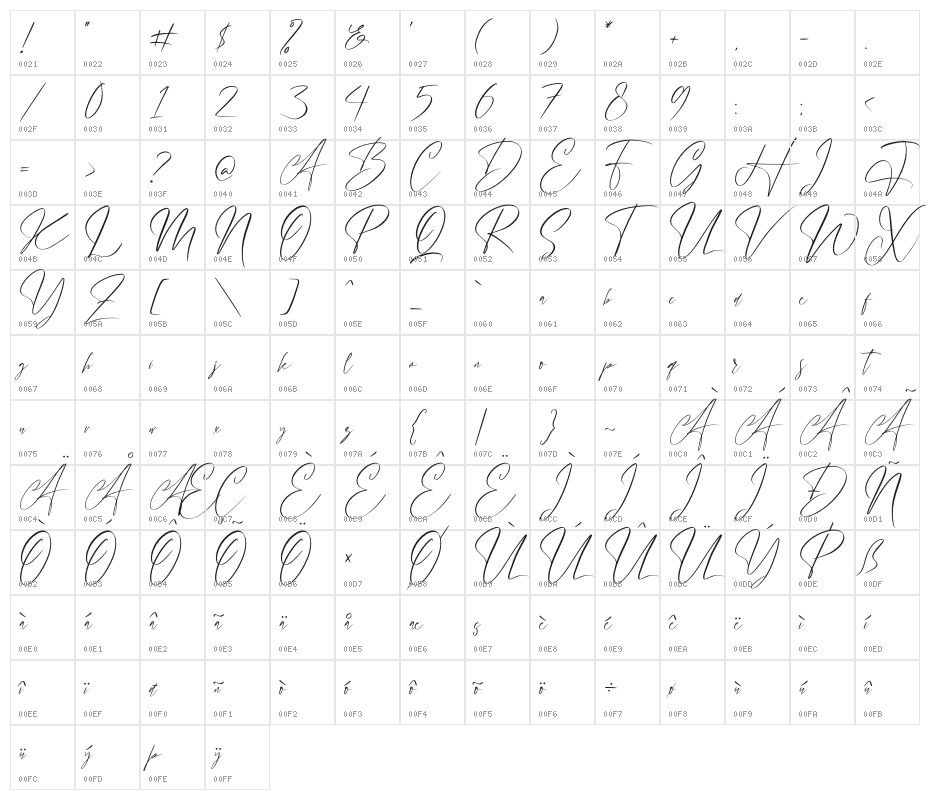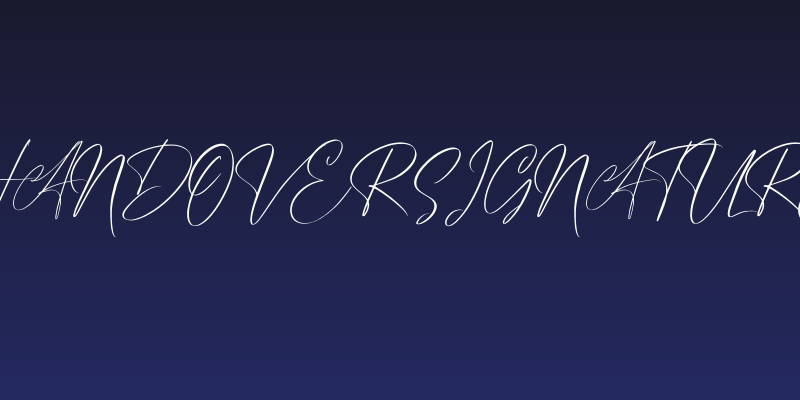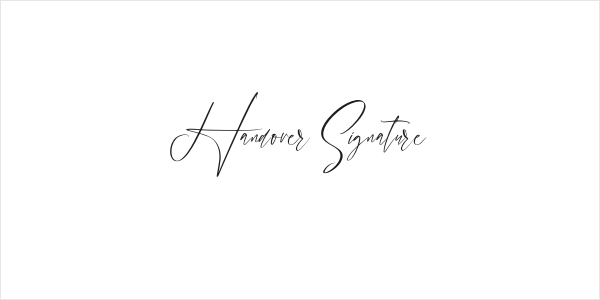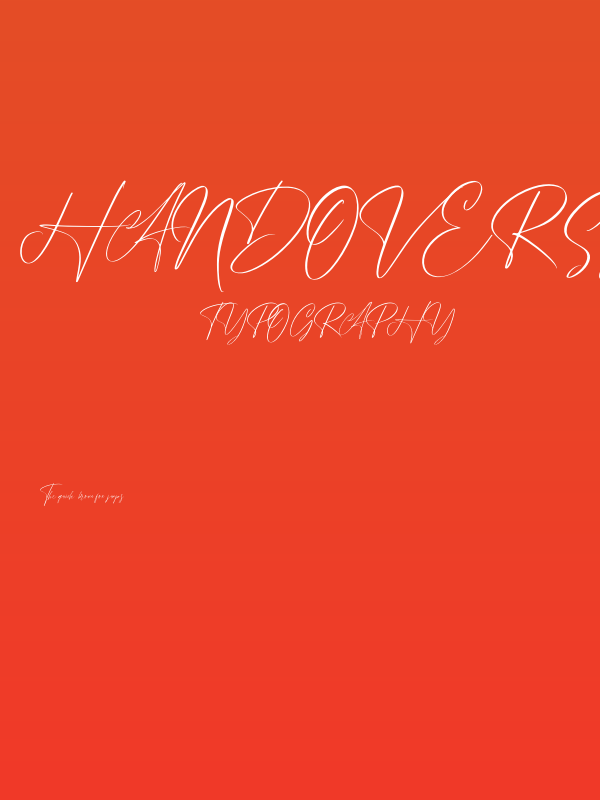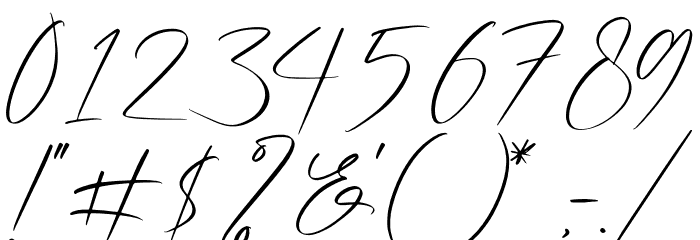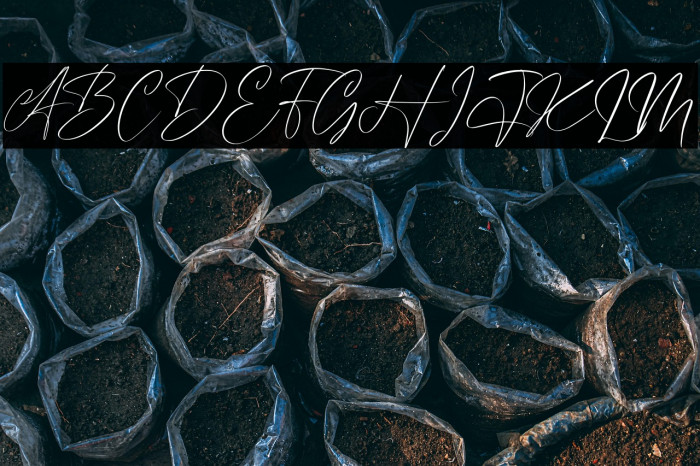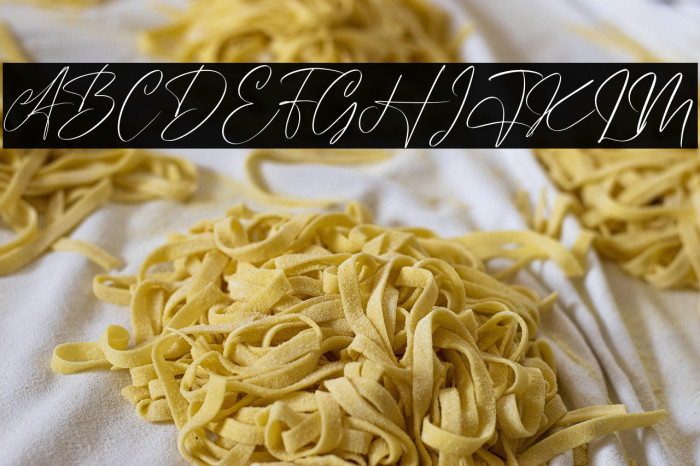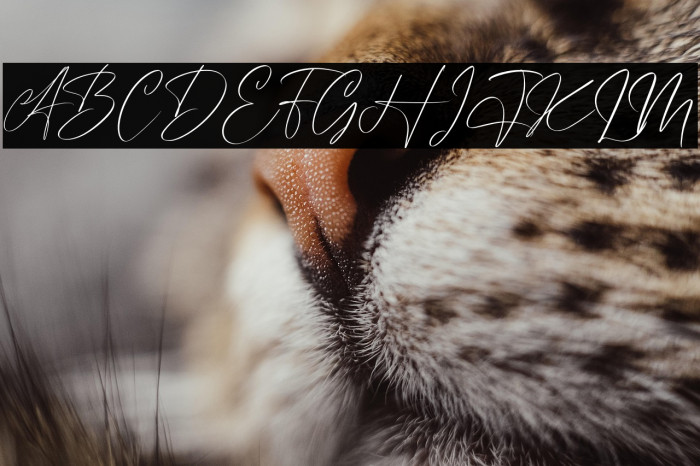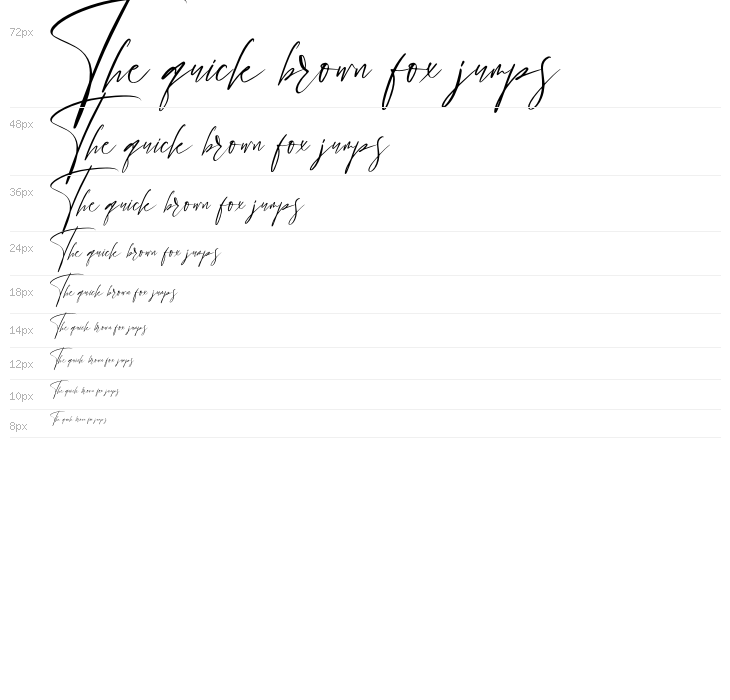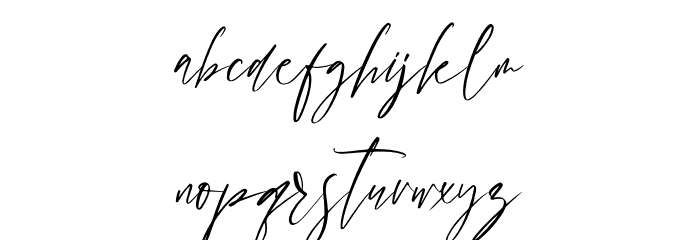
Handover Signature Font
Handover Signature Description
This font exudes a sophisticated and elegant handwritten style, characterized by its fluid and cursive strokes. The uppercase letters are tall and graceful, with sweeping lines that give a sense of movement and flair. The lowercase letters maintain a consistent flow, complementing the uppercase with their own unique charm. Numbers are designed with a similar fluidity, ensuring a cohesive look across all characters. Special characters are thoughtfully integrated, maintaining the overall aesthetic. The font's delicate and airy appearance makes it ideal for projects that require a personal touch or a sense of elegance.
| Proposed Projects | Ideal for wedding invitations, personal branding, elegant logos, and greeting cards. |